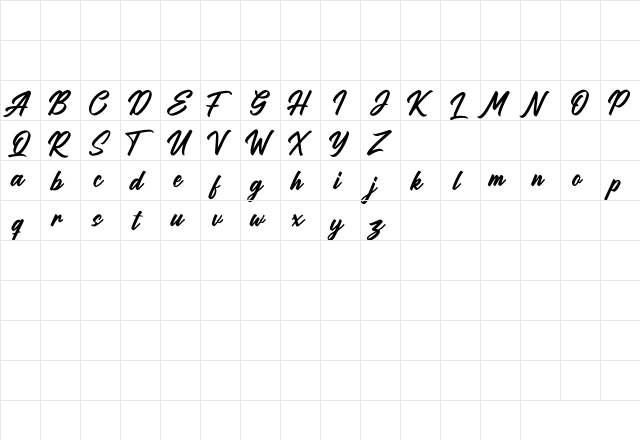
Sandblack Regular
| Designer | Jefri Dwi Alfatah |
Design Context for Sandblack Typeface
Sandblack is a composed and adaptable typeface that performs quietly and consistently across a wide range of design contexts.